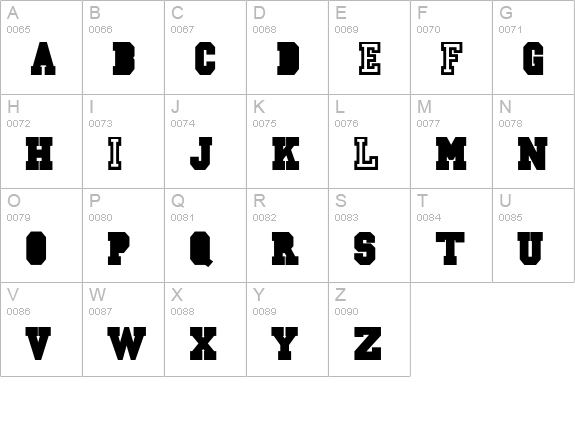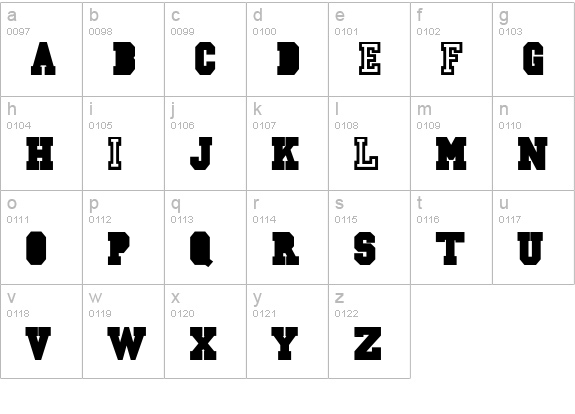
CSD-JERSEY-Normal Font Details
CSD-JERSEY-Normal is the standard, neutral variant in the CSD typeface family \xE2\x80\x94 well suited to general body text, paragraphs, and standard typographic work.
CSD-JERSEY-Normal font is a versatile and modern typeface that is perfect for a wide range of design projects. Its clean lines and sleek design make it a great choice for both digital and print applications. The font features a balanced combination of sharp edges and smooth curves, giving it a unique and contemporary look. One of the best things about CSD-JERSEY-Normal font is that it is completely free to download. You can easily access this font at FontsMarket.com, where you can find a wide selection of high-quality fonts for all your design needs. Whether you're working on a website, a logo, a poster, or any other project, CSD-JERSEY-Normal font is sure to make a bold statement and grab attention. Don't miss out on this fantastic font – download it for free today!